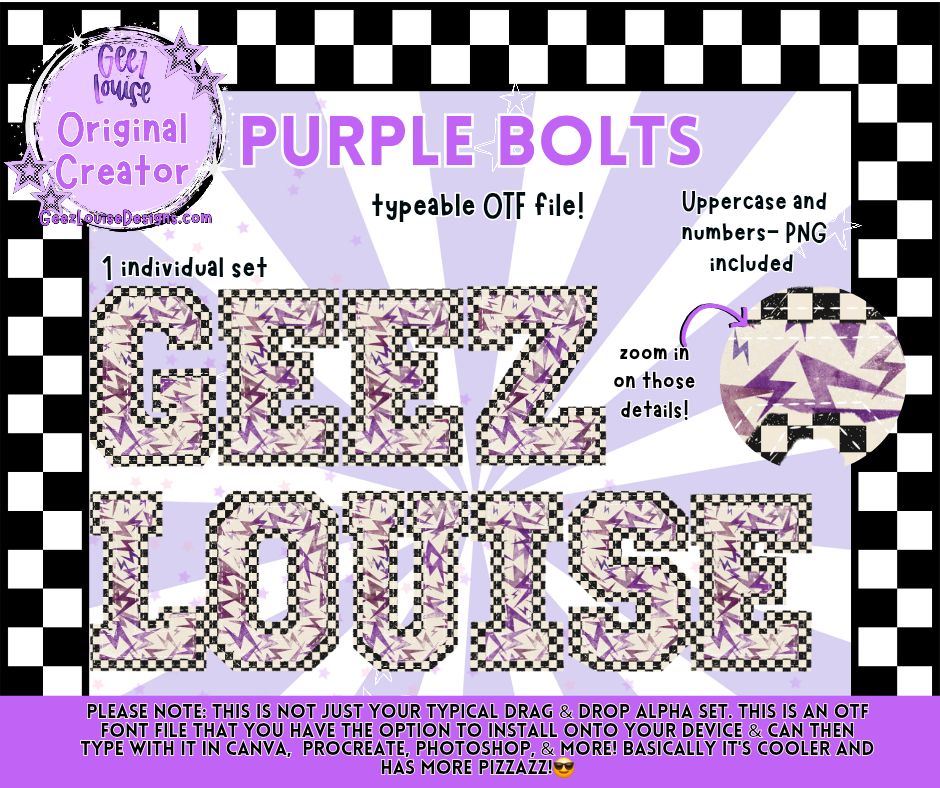
PURPLE BOLTS — Typeable OTF Font + PNG
Lightning in every letter. Punk chaos, pixel-perfect.
PURPLE BOLTS is a full-blown font storm—bold uppercase letters and numbers wrapped in jagged purple lightning, stitched with punk precision and ready to riot across your next design. Whether you're crafting merch, building alt branding, or just want your type to scream louder, this font is built to strike.
Not your average drag-and-drop alpha—this is installable, editable, and full of punk pizzazz
Designed for alt creators, merch makers, and chaos conjurers
Zoom-worthy details that hold up in any layout